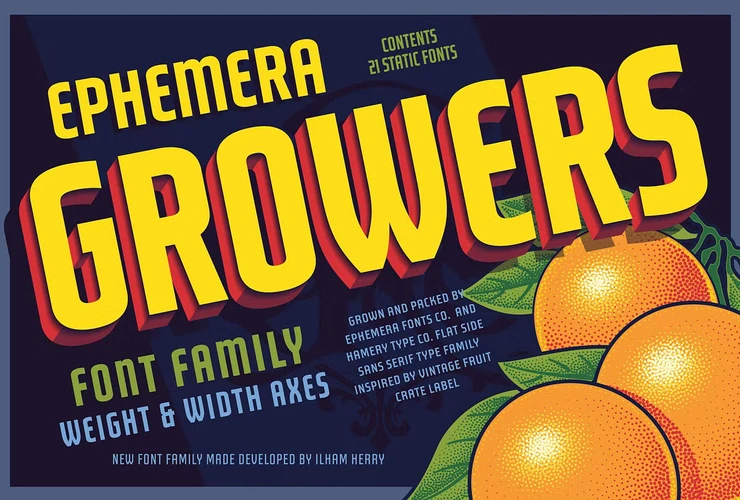
EFCO Growers Font Family: A Versatile Vintage-Inspired Typeface
The EFCO Growers Font Family is a remarkable collection of low-contrast sans-serif typefaces, inspired by the nostalgic charm of vintage fruit crate labels. This typeface family offers an array of styles and weights, providing designers with a versatile toolkit for creating dynamic and harmonious compositions. With open apertures and flat sides, EFCO Growers combines a clean, modern aesthetic with a touch of retro flair, making it perfect for a variety of applications, from packaging and posters to logos and branding materials.
Features and Benefits
The EFCO Growers Font Family includes 21 static fonts, covering a spectrum of styles from Condensed to Wide and Regular, with each style available in seven weights ranging from Light to Black. This extensive variety ensures that designers can find the perfect balance for any project. Additionally, EFCO Growers supports OpenType features such as stylistic alternates, tabular figures, superscript figures, and fractions, offering further customization options for sophisticated typography.
Whether you’re designing for print or digital media, EFCO Growers provides the flexibility needed to achieve a cohesive and polished look. Its vintage inspiration makes it ideal for creating designs with a nostalgic feel, while its modern attributes ensure it remains fresh and relevant. The availability of a variable font version allows for even more versatility, enabling designers to fine-tune weight and width to suit specific needs.